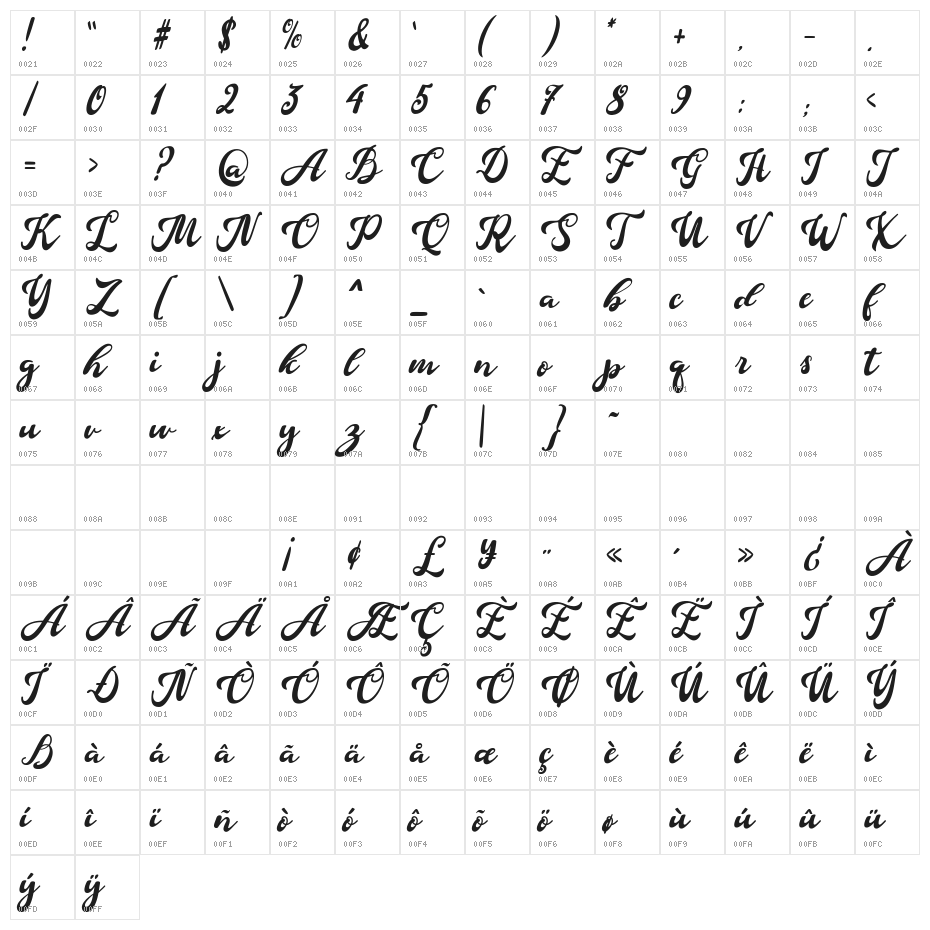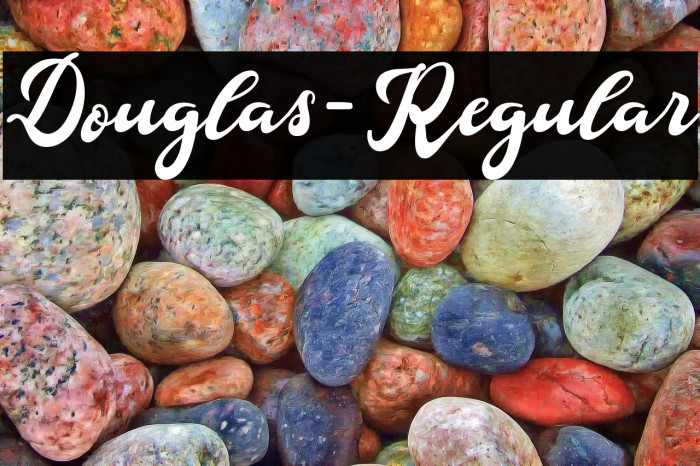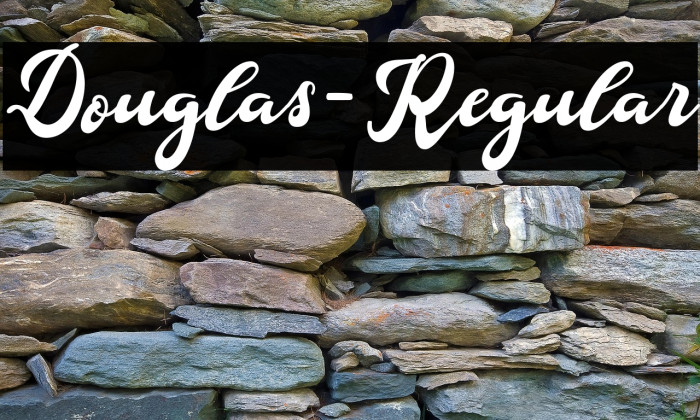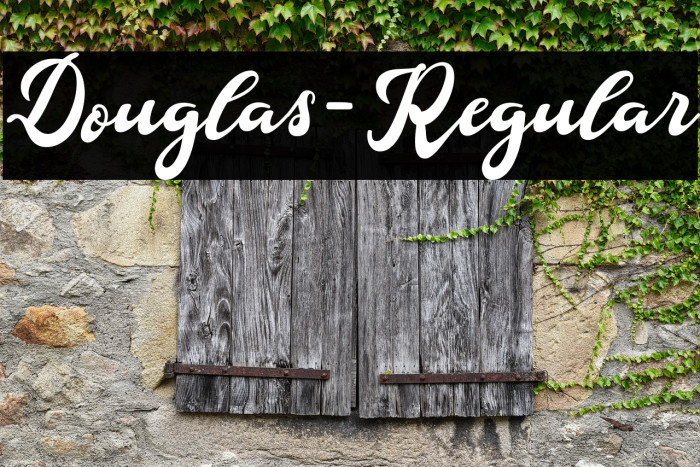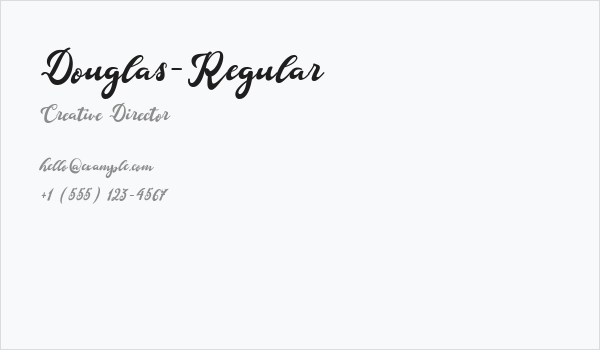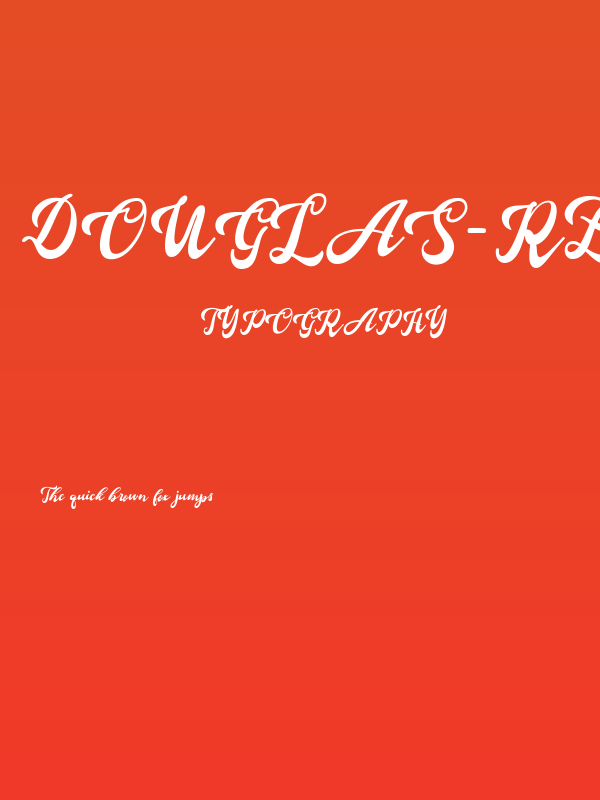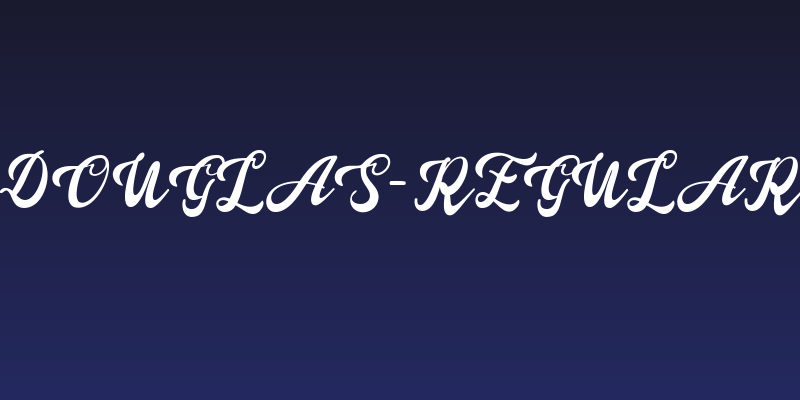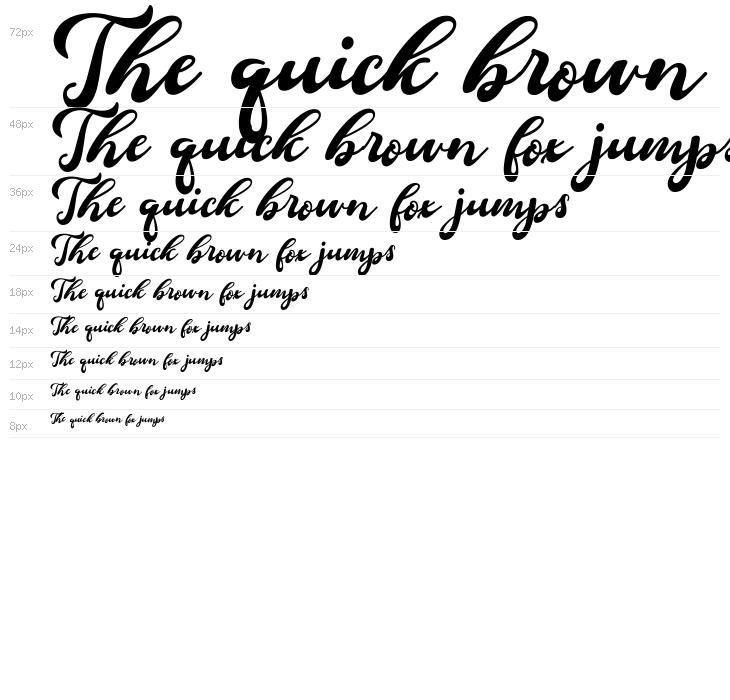
Douglas-Regular Font
Douglas-Regular Description
This font features a dynamic and elegant script style with flowing, interconnected letters that convey a sense of movement and sophistication. The uppercase letters are bold and slightly slanted, adding a touch of drama and flair. The lowercase letters maintain a consistent flow, with smooth curves and loops that enhance readability while preserving the decorative nature of the script. The numerals are distinct and maintain the same stylistic elements, ensuring consistency across all characters. Special characters are well-integrated, maintaining the overall aesthetic of the font.
| Overall Style | Elegant, Decorative |
| Proposed Projects | Ideal for wedding invitations, branding, logos, and elegant packaging designs. |